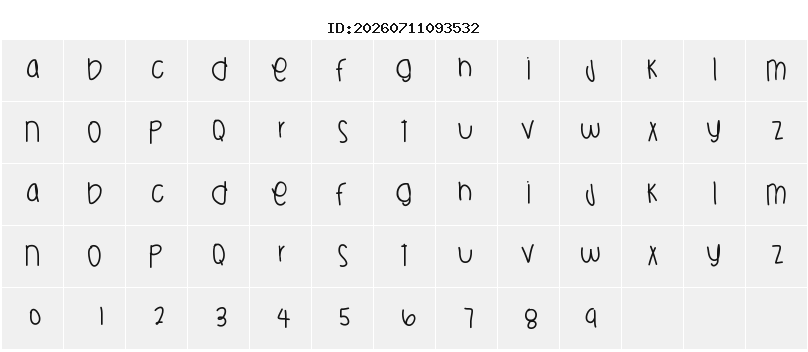
• Font Name: HaloweenIsBackYeahhhh
About HaloweenIsBackYeahhhh.ttf
HaloweenIsBackYeahhhh.ttf is a modern, elegant sans-serif font designed for ultimate readability and visual harmony. Perfect for branding, headlines, web design, and print materials.